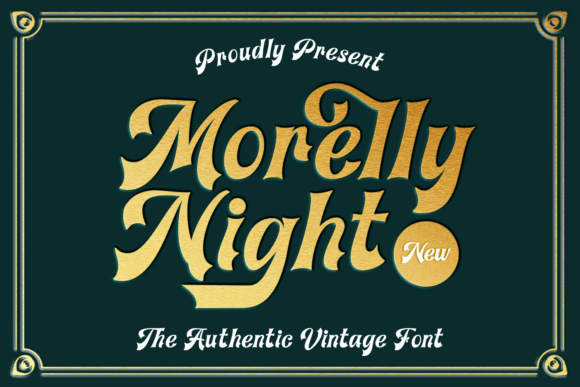
Morelly Night is a retro display font designed to capture the essence of the past with its bold and attractive design. Its sharp edges and sleek curves give it a distinctly vintage feel, while its high legibility makes it perfect for headlines, posters, and other graphic design projects that require a touch of old-school charm.